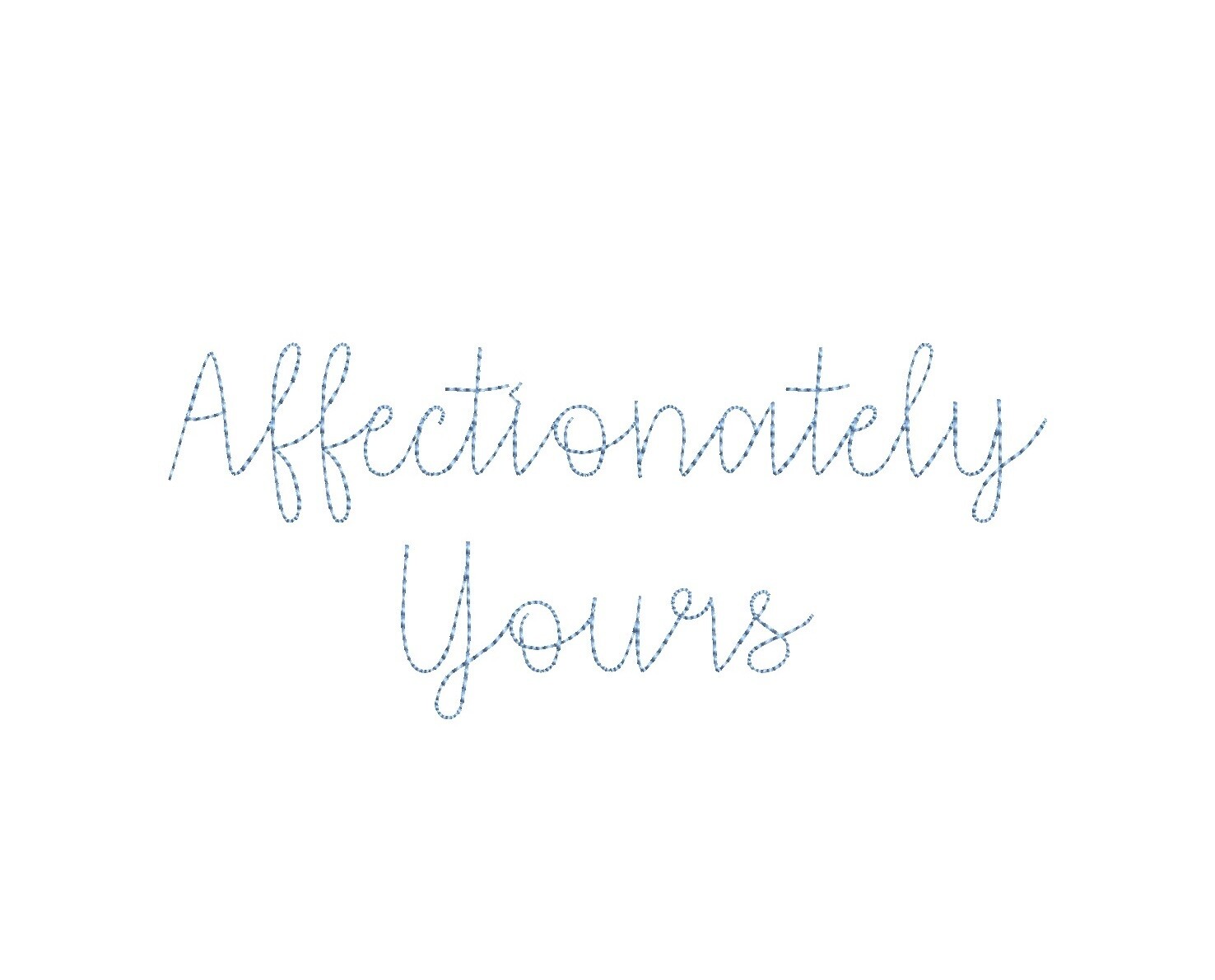
Embrace the affectionate charm of 'Affectionately Yours Bean Stitch ESA' font, tailor-made for embroidery enthusiasts seeking heartfelt and endearing designs. This delightful typeface adds a touch of warmth and love to your creations, conveying heartfelt messages. Seamlessly compatible with Wilcom Studio e4.5.6 and Hatch 3 versions and above, it effortlessly integrates into your digitizing workflow. Its tender curves and precise bean stitches ensure impeccable stitch quality, elevating your embroidery projects to a level of sentimental beauty. Ideal for heartfelt monograms, quotes, and decorative elements, this ESA font sparks creativity and guarantees a masterpiece that expresses love. Share affection with 'Affectionately Yours Bean Stitch ESA' font today!